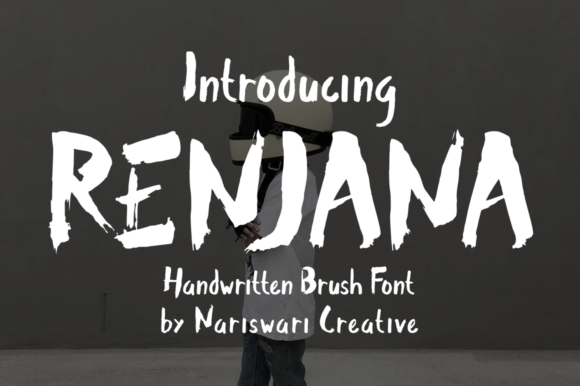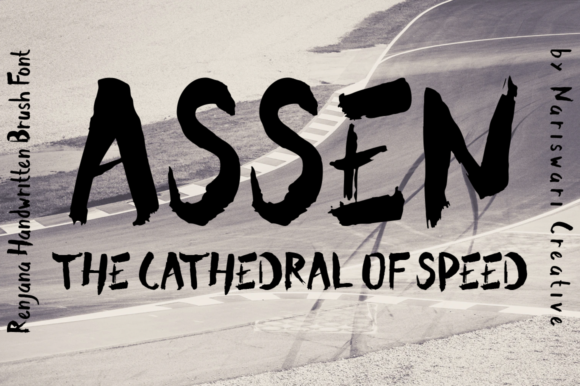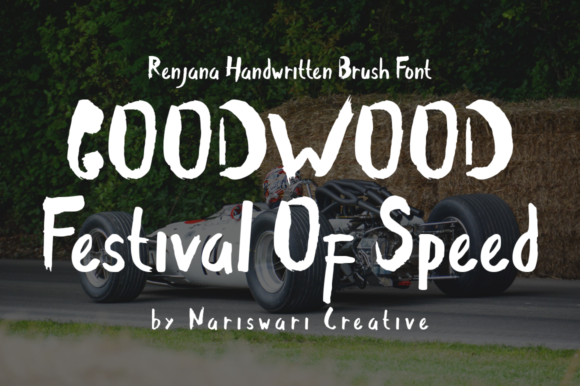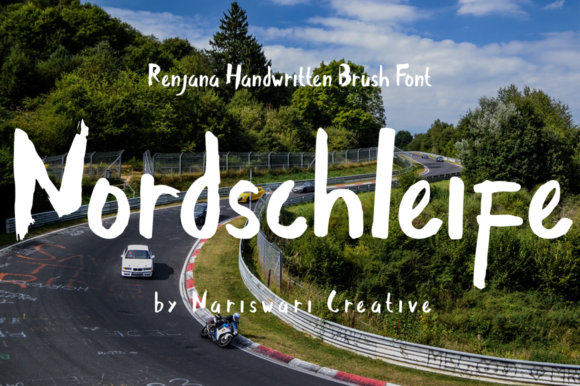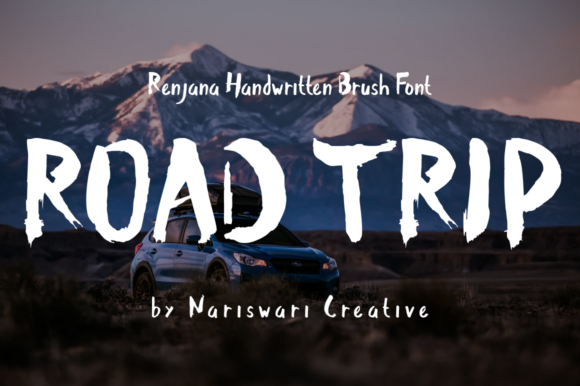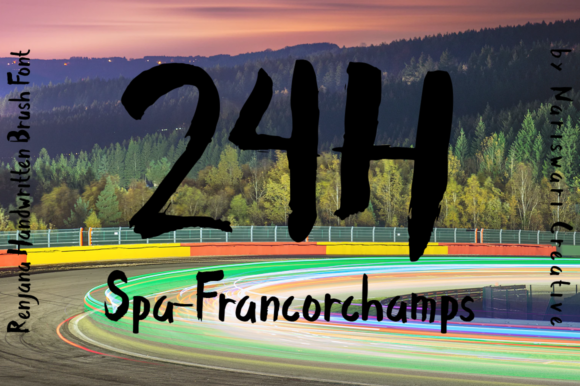
Renjana Font
About Renjana Font
Renjana is a unique and interesting handwritten font. A little bit quirky, this font looks incredibly adept on a wide variety of contexts!